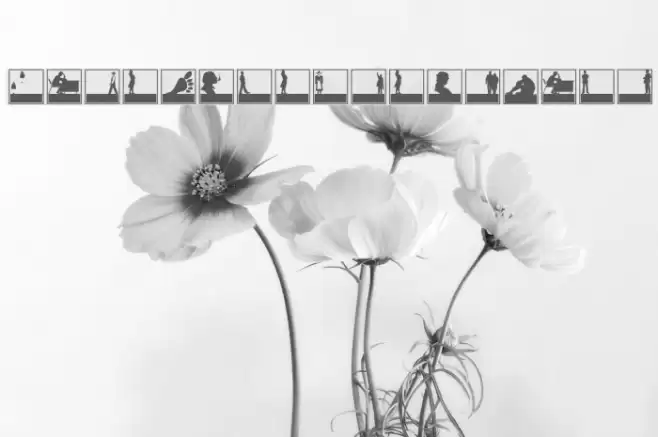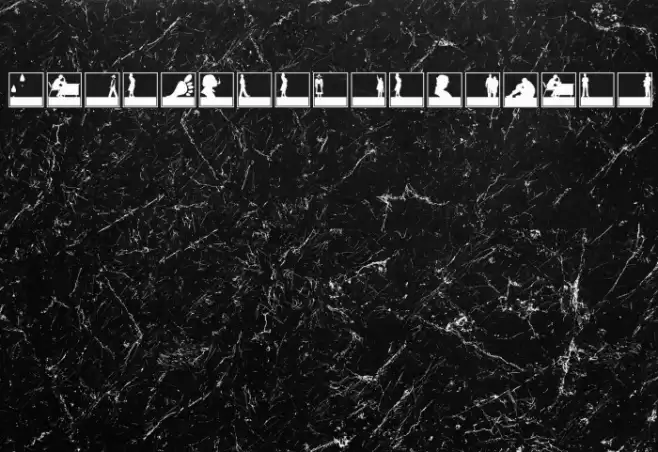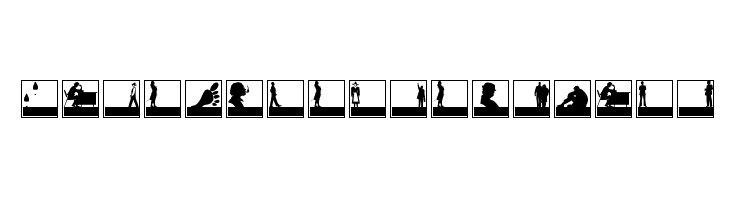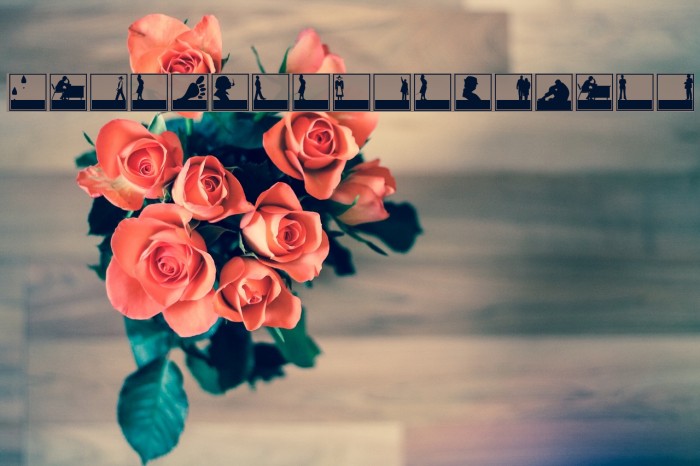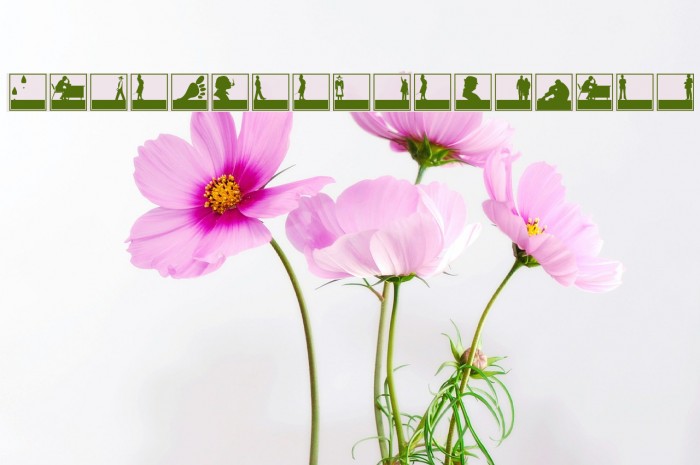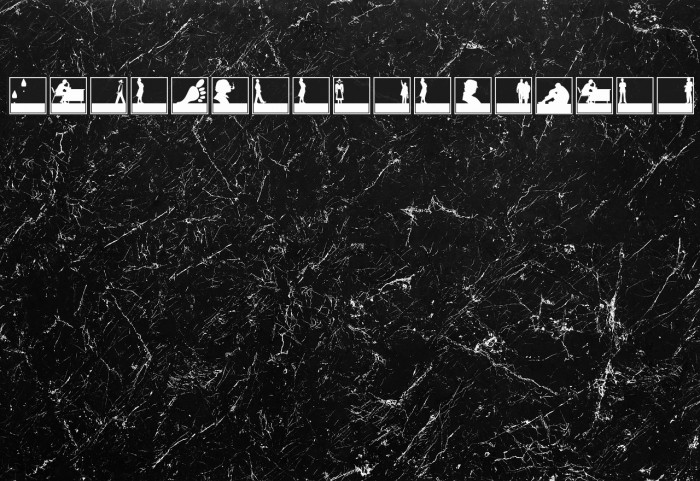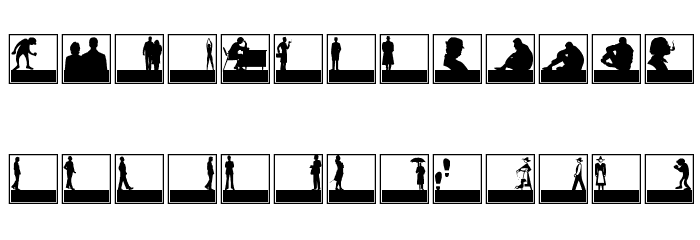
TextEmptyStickers Font
TextEmptyStickers Description
A collection of pictogram-style silhouette icons depicting various human figures, actions, and objects, each enclosed in a square frame with a solid base. The icons are highly simplified and use strong black-and-white contrast, focusing on recognizable shapes and gestures rather than typographic characters.
Silhouette pictogram icons with a bold, graphic style from Uncategorized fonts.
- Proposed Projects: Infographics, signage, instructional materials, stickers, user interfaces, educational resources.
- Overall Style: Modern, Graphic, Minimalist
- Use Case: Icons, Stickers, Signage, Visual communication